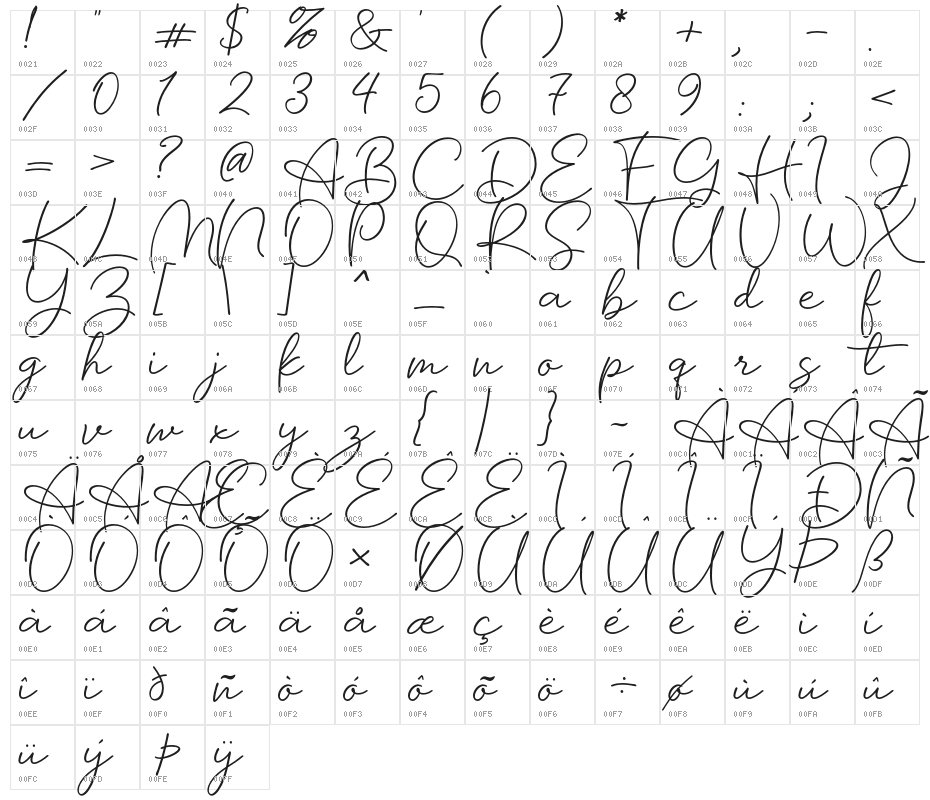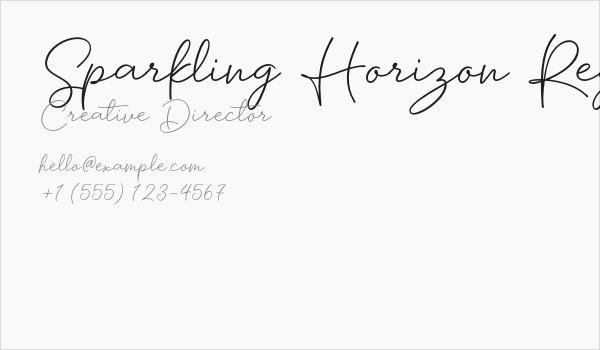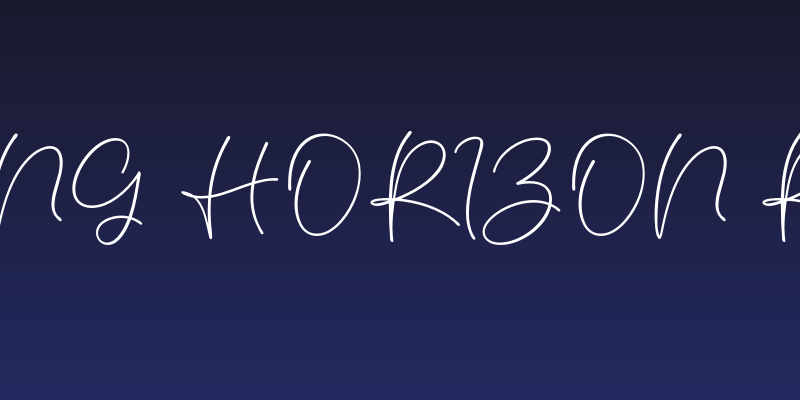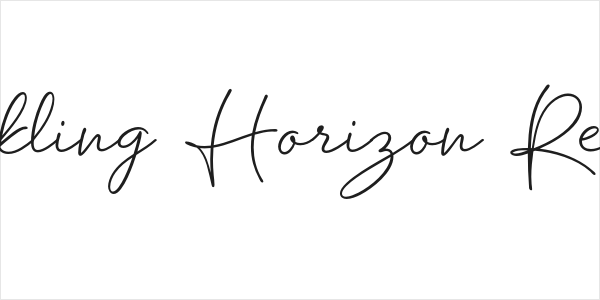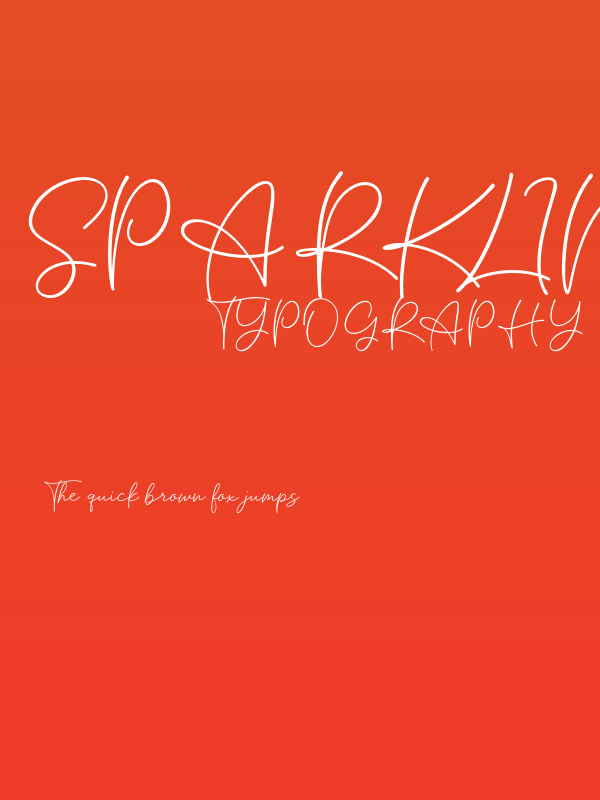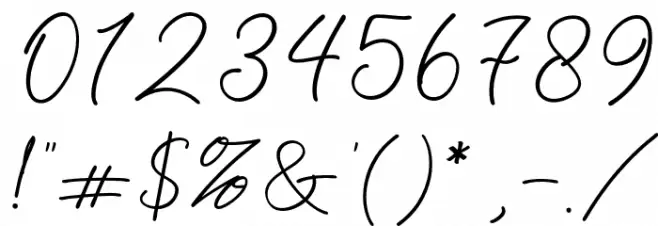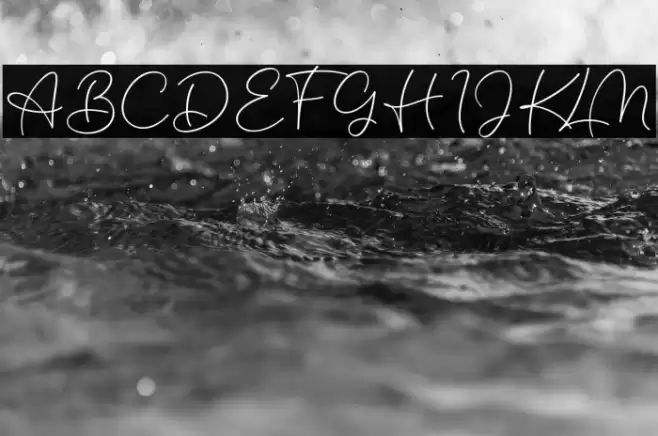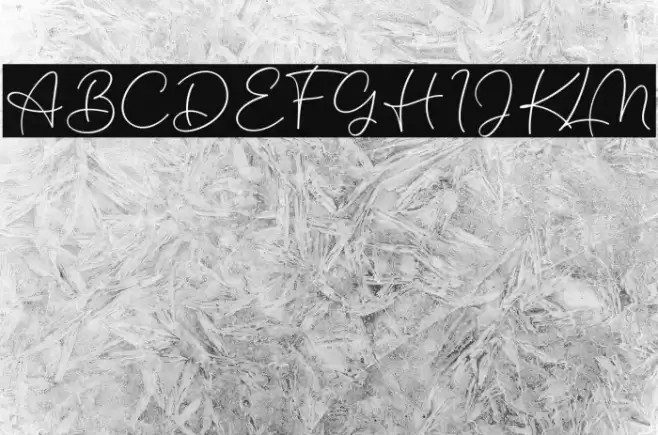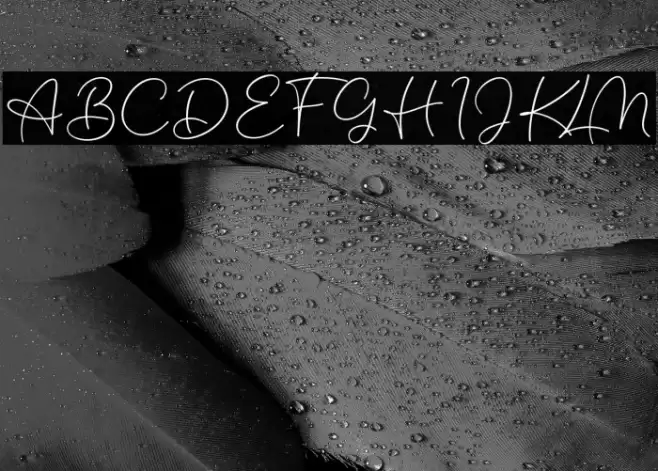
Sparkling Horizon Regular Font
Sparkling Horizon Regular Description
This elegant script font exudes a sense of fluidity and grace, characterized by its flowing, interconnected letterforms. The uppercase letters maintain a consistent height with gentle curves, while the lowercase letters exhibit a more pronounced cursive style, enhancing the font's overall sophistication. The numerals are clear and legible, complementing the script style without overpowering it. Special characters are thoughtfully designed to match the font's aesthetic, ensuring a cohesive look across all text elements. This font is perfect for projects that require a touch of elegance and personal flair.
| Use Case | Headlines, Invitations, Branding |
| Proposed Projects | Ideal for wedding invitations, greeting cards, personal branding, and elegant packaging designs. |